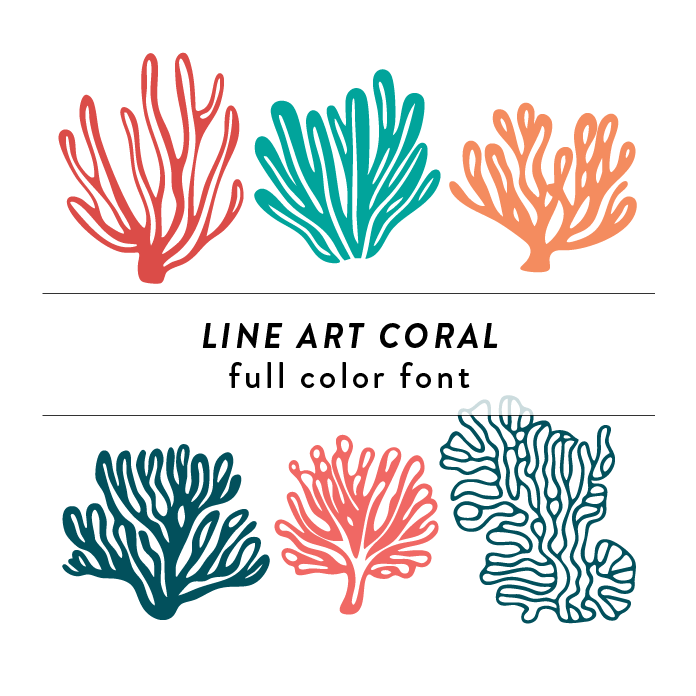
Line Art Coral Full Color Font is a whimsical and intricate font design inspired by coral reefs. With delicate lines and vibrant colors, this font captures the essence of summer and beach vibes. Perfect for crafting projects, invitations, and any design that needs a touch of nautical flair. This font is a OTF craft font that will appear in color only when used with the silhouette software.